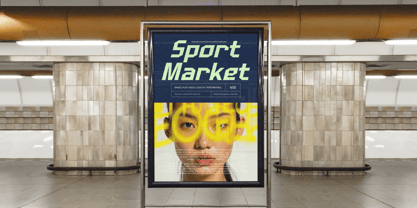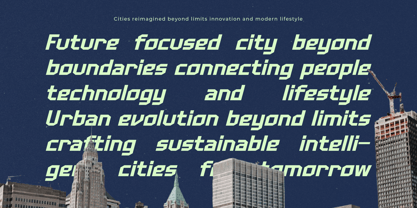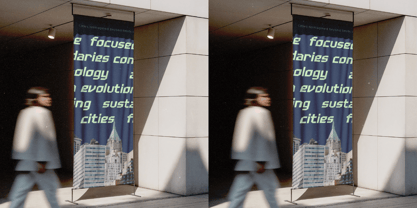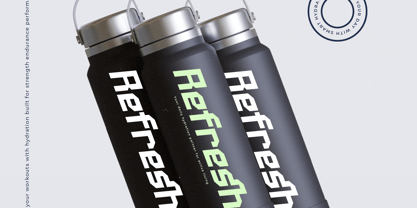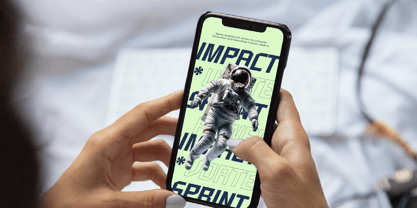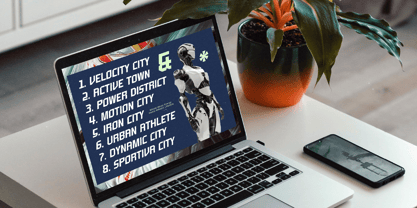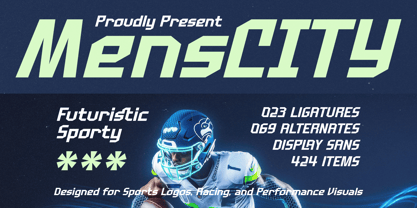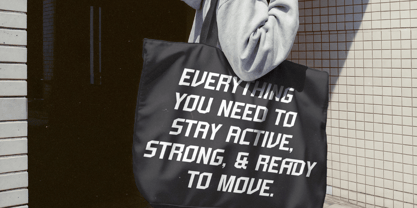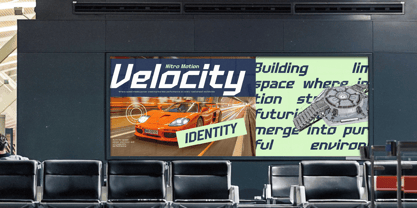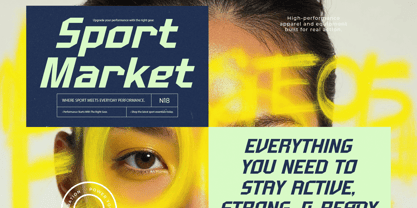
Menscity
The Menscity Font Family was designed by Heru Utama Putra and published by Timelesstype Studio. Menscity contains 2 styles and family package options. More about this family
MensCITY is a futuristic sporty display sans designed for high-energy branding, athletic visuals, racing graphics, and performance-driven identities. With 23 ligatures, 69 alternates, and 424 total characters, this typeface delivers sharp geometric angles, fast-paced motion cues, and a modern tech aesthetic that elevates sports logos, esports branding, jerseys, posters, and digital promo assets. Every letter is engineered for impact and clarity, making MensCITY an ideal choice for creators who want bold presence, dynamic rhythm, and a clean, competitive edge across both print and digital applications.